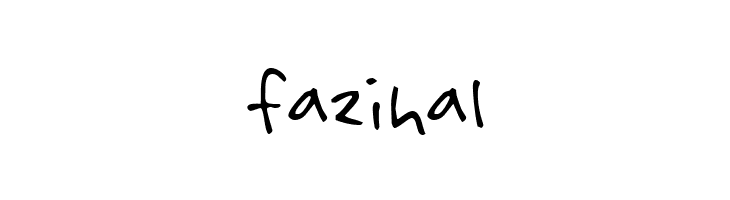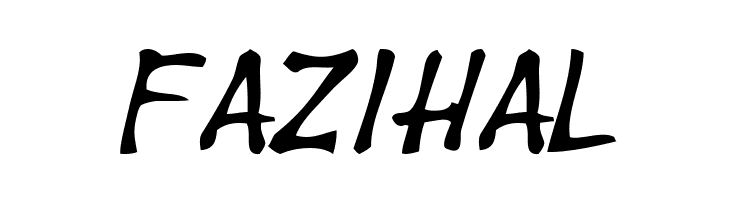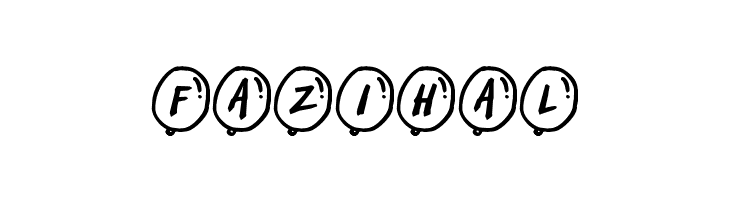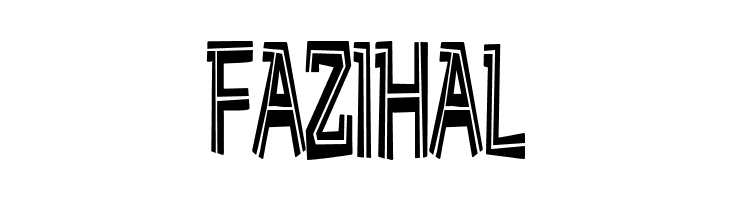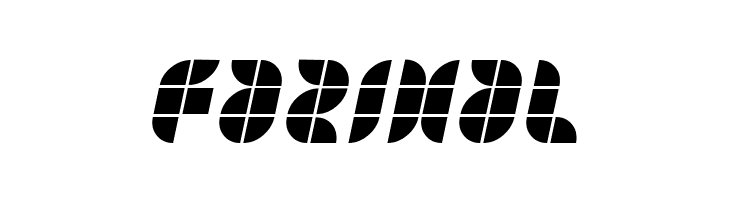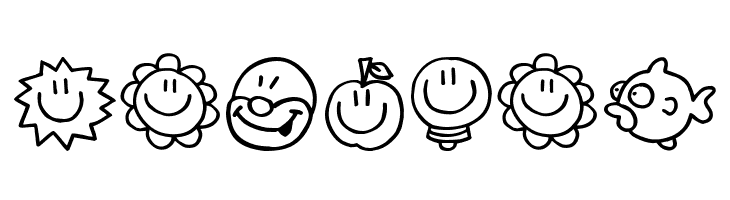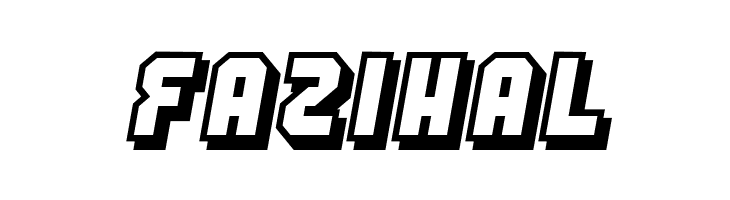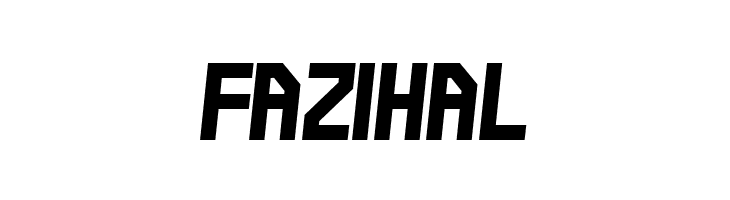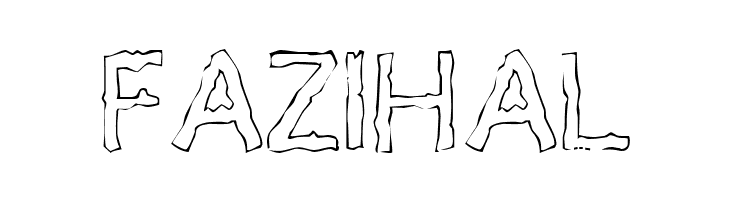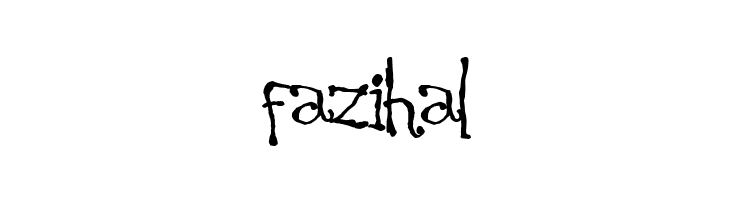
A playful, casual handwritten font with an informal, friendly style.
A bold, dynamic handwritten font with lively, irregular strokes.
A playful, balloon-themed font with a hand-drawn, festive style.
Bold, angular, and geometric font with a hand-drawn feel.
A bold, stencil-style font with fragmented, geometric letterforms.
A bold, segmented geometric font with a modern and futuristic style.
A playful collection of expressive character icons with bold outlines.
A bold, three-dimensional font with a retro, geometric style.
A bold, geometric font with a futuristic, industrial style.
A sketch-like, hand-drawn font with a playful and artistic style.
A whimsical, hand-drawn font with an eerie, rustic charm.
A modern, rounded font with a slightly condensed and dynamic style.
A bold, geometric outline font with rounded corners and consistent character height.
A playful, handwritten font with irregular strokes and a casual style.
A playful, handwritten font with a quirky, informal style.
A modern, geometric font with clean lines and a minimalist style.
A bold, distressed font with a rugged, grunge-like appearance.
A bold, hand-drawn font with a rough, expressive style.
A bold, outlined font with a playful, cartoonish style.
A rugged, distressed font with a vintage, hand-drawn appearance.
A bold, stencil-style font with high contrast and geometric shapes.
A bold, playful font with thick outlines and a graffiti-inspired style.
A bold, outlined font with a playful, three-dimensional style.
A playful, bold font with irregular, whimsical letterforms.
A bold, playful font with a graffiti-like, urban style.
A bold, playful font with a 3D shadow effect, perfect for eye-catching designs.
A playful, rounded font with bold, smooth curves and a friendly appearance.
A playful, bubbly font with thick, rounded shapes and a whimsical style.